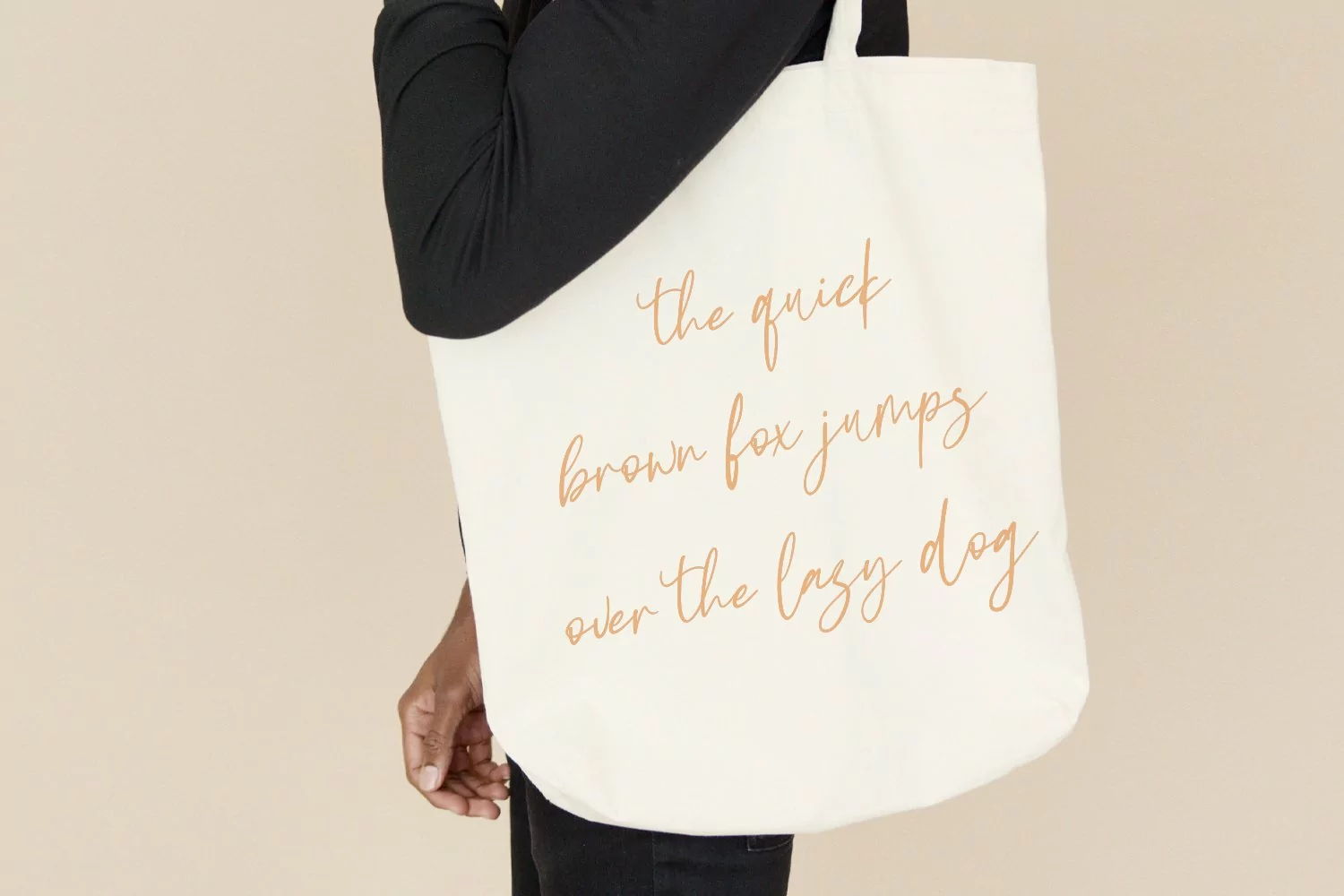
Vellizta is a slanted script font, With a high contrast stroke clean and fancy characters. It has Opentype features of ligatures, makes it a perfect choice for branding and digital designs. Use this font for logos, social media, websites, blogs, instagram, social media, business cards, branding, and more! Vellizta font support multilingual more than 100+ language. and good pair for your secondary text font with sans or serif. Make a stunning work with Vellizta script font.
Vellizta